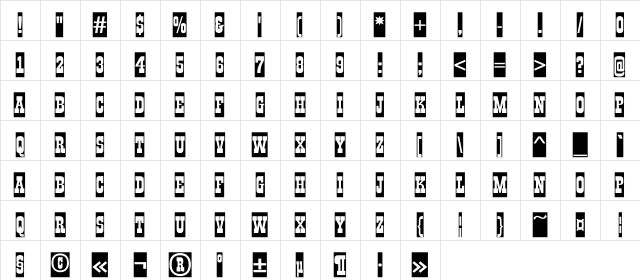
a_GildiaTitulCm Bold Font Preview
a_GildiaTitulCm Bold
a_GildiaTitulCm Bold Font Details
Design Context for a_GildiaTitulCm Typeface
a_GildiaTitulCm takes a measured approach to typography — its balanced proportions and neutral character make it a reliable workhorse for both digital and print work. The heavy weight commands attention and anchors typographic hierarchies.